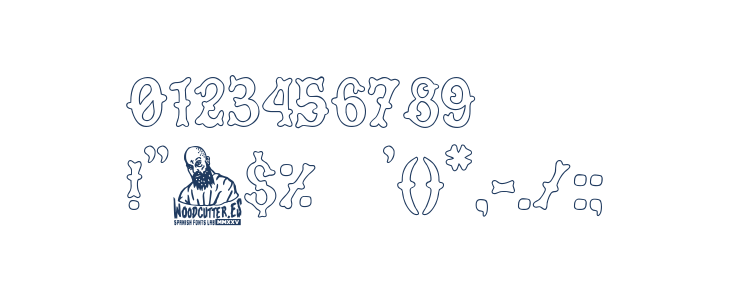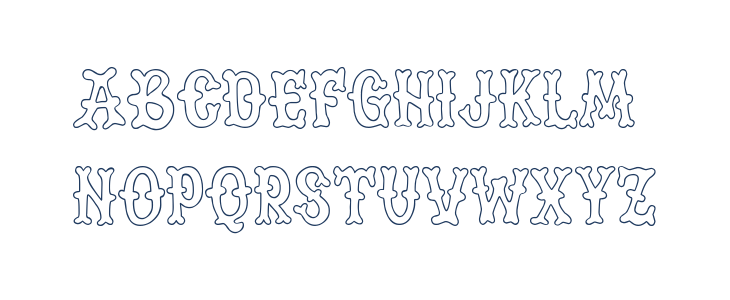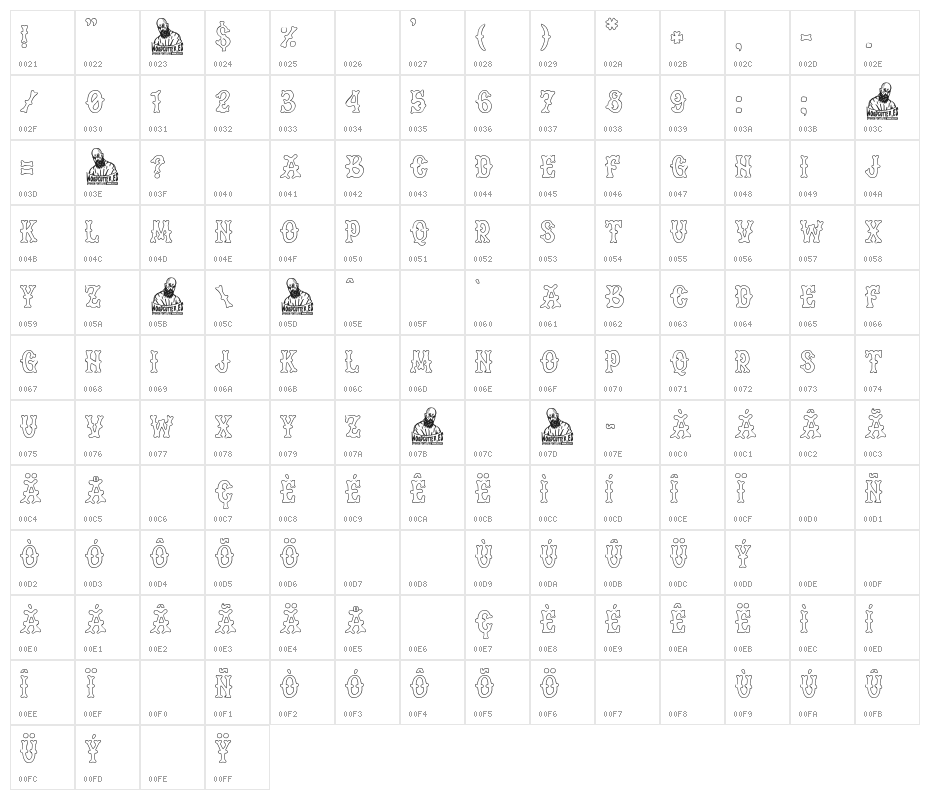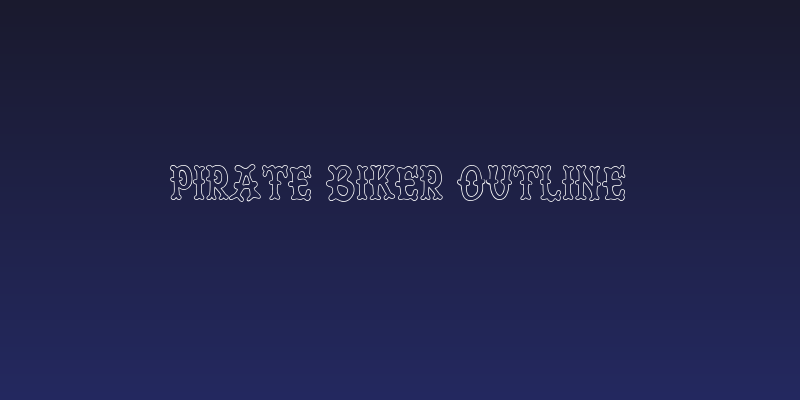
Pirate Biker Outline Font
Pirate Biker Outline Description
This is an outline display font with irregular, jagged edges reminiscent of pirate or biker themes. The characters are uppercase, bold, and have a playful, decorative style with exaggerated serifs and a hand-drawn appearance.
| Overall Style | Decorative, Playful, Themed |
| Proposed Projects | Posters, event flyers, themed party invitations, signage, branding for entertainment venues, Halloween materials. |